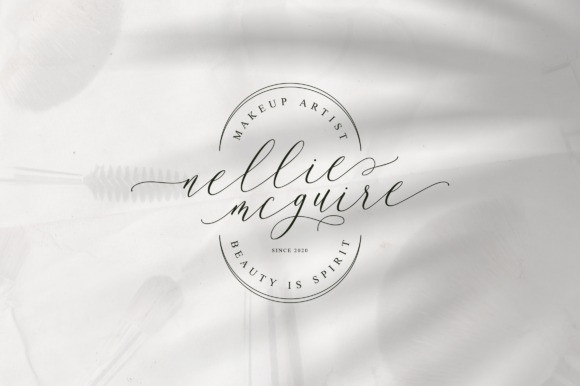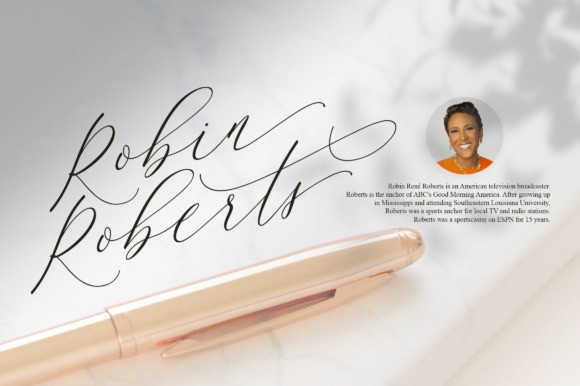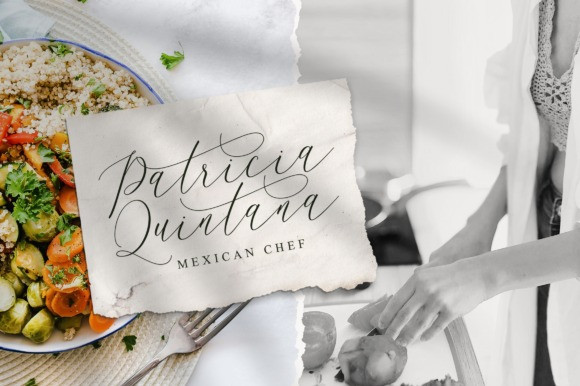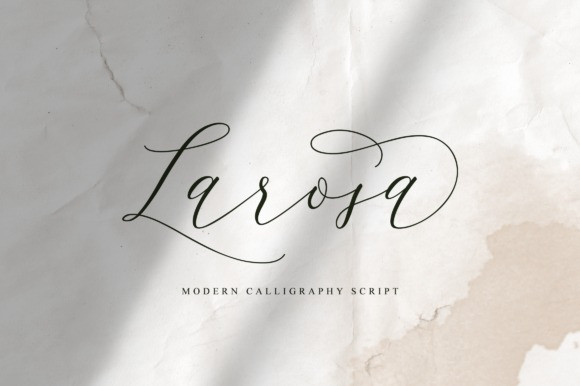
Larosa Script Font
I am very pleased to introduce a new script font. It’s a calligraphy script font with a simple and classy style, this font is great for your next creative projects such as watermark on photography, quotes, album cover, logo, business card, and many other design project. Larosa Font is designed and shared by Letteratom. It’s an elegant and luxurious modern handwritten font perfect for logo designs, wedding supplies, branding, beauty packaging and more. Create your clean and stylish design with Larosa!